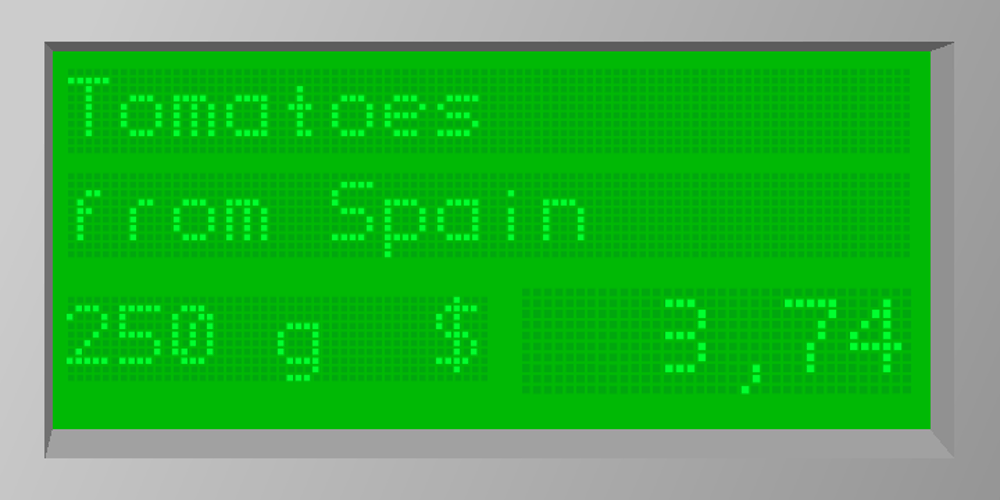
Cash Point Mono
Cash Point Mono Font Family was designed by Matthias Luh and published by Matthias Luh. Cash Point Mono contains 1 styles and family package options. A very straight, geometric font which reminds me of the font on a display of a cash desk. Like most of the fonts at these display, this font is made up of a 6×10 matrix (capitals: 5×7). Hint: Insert Æ or ∂ to create a filled character (6×10).